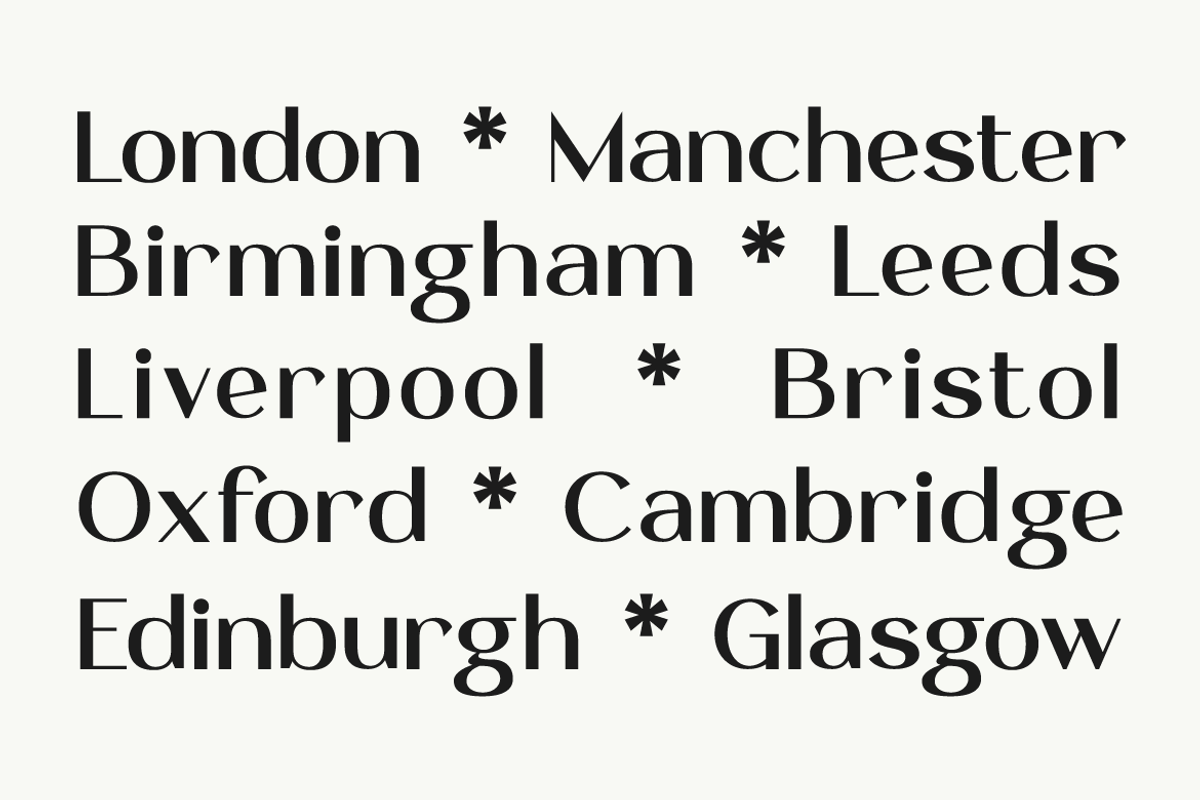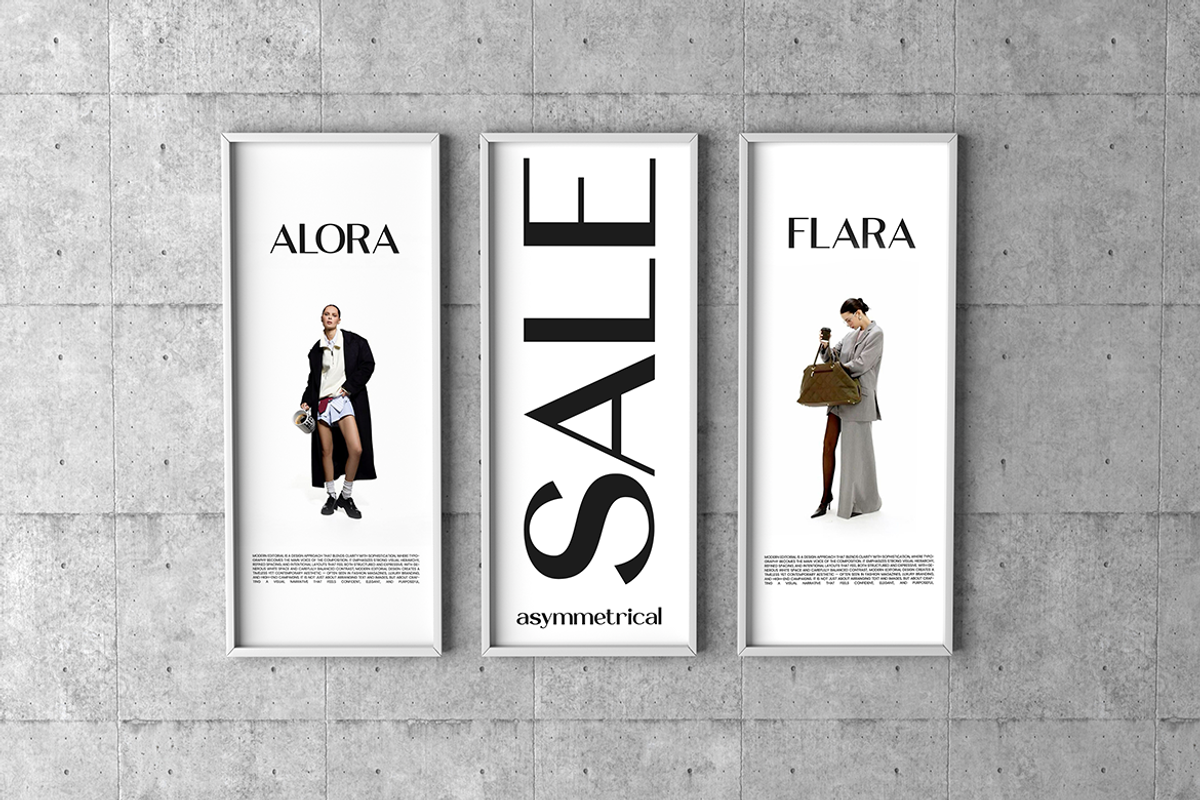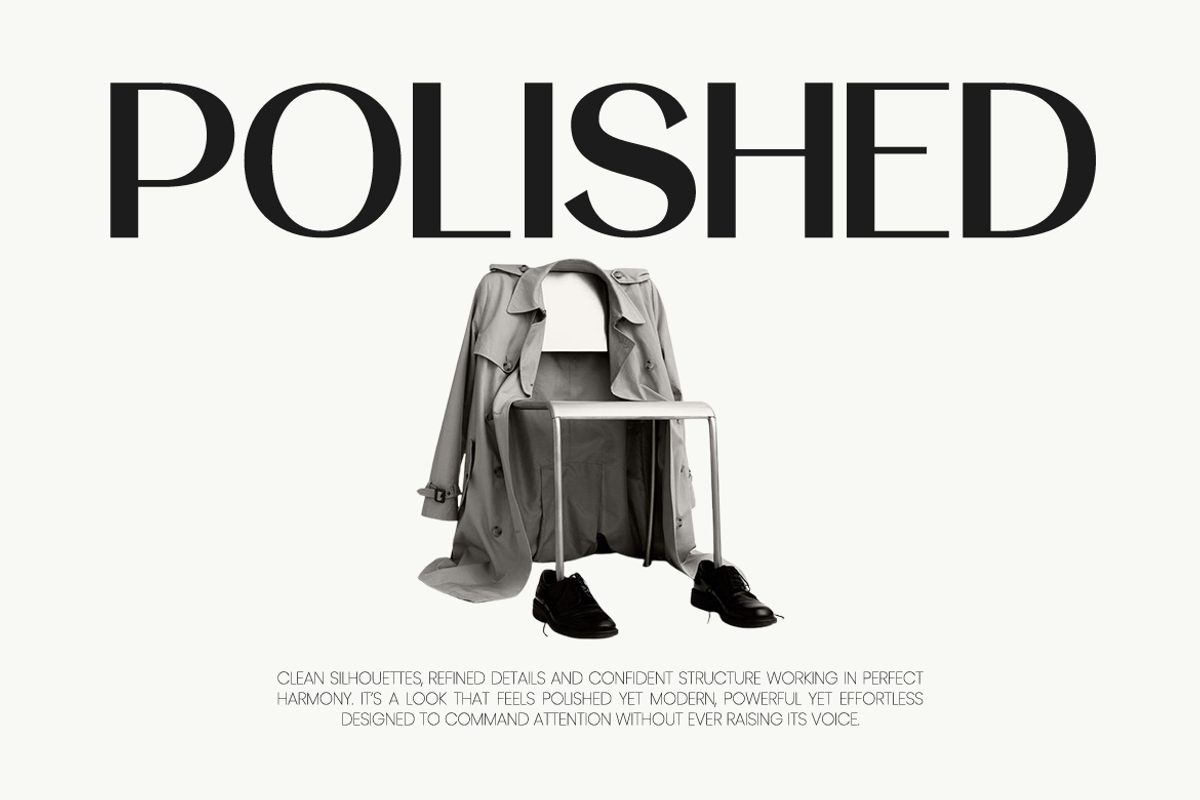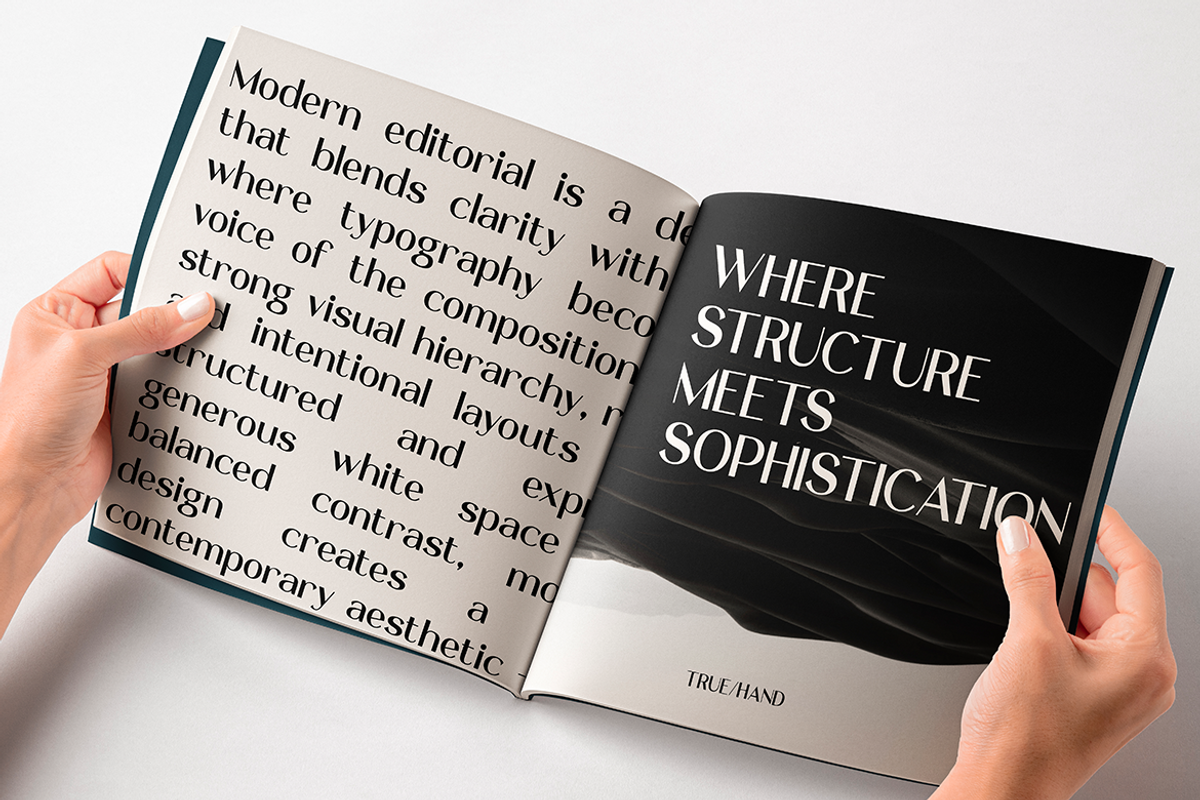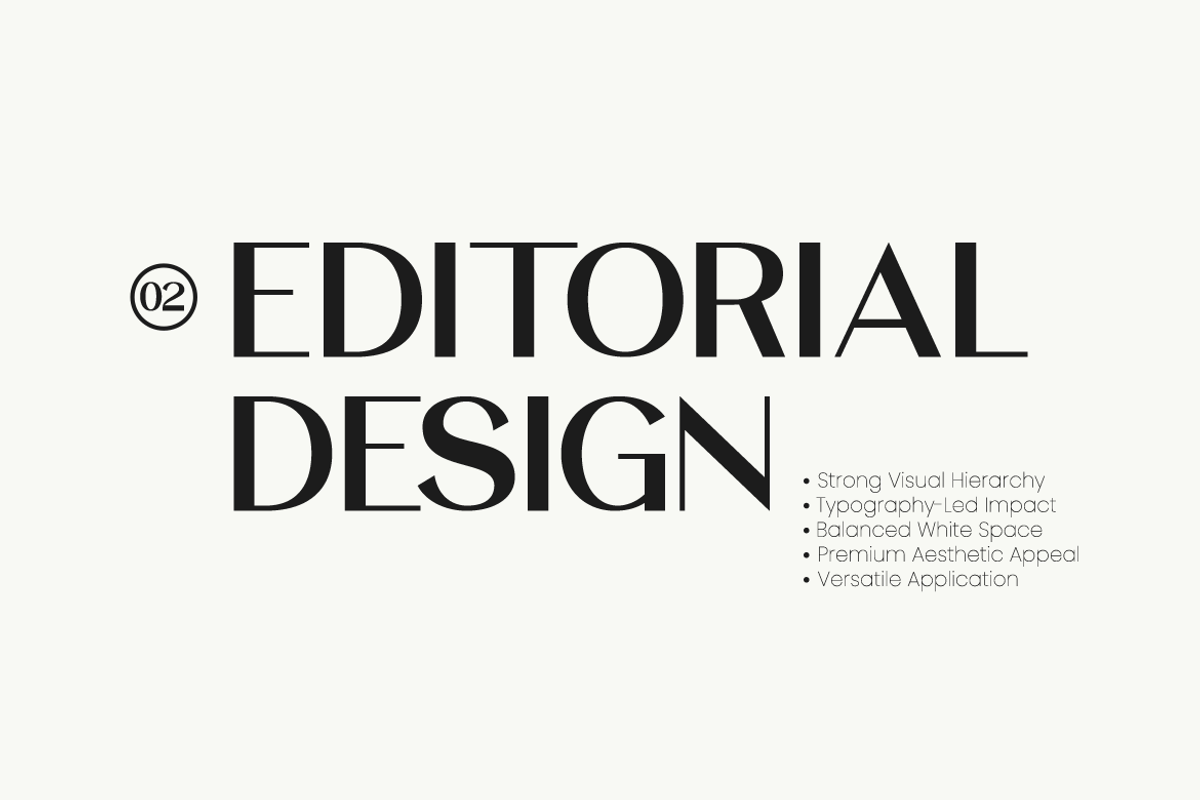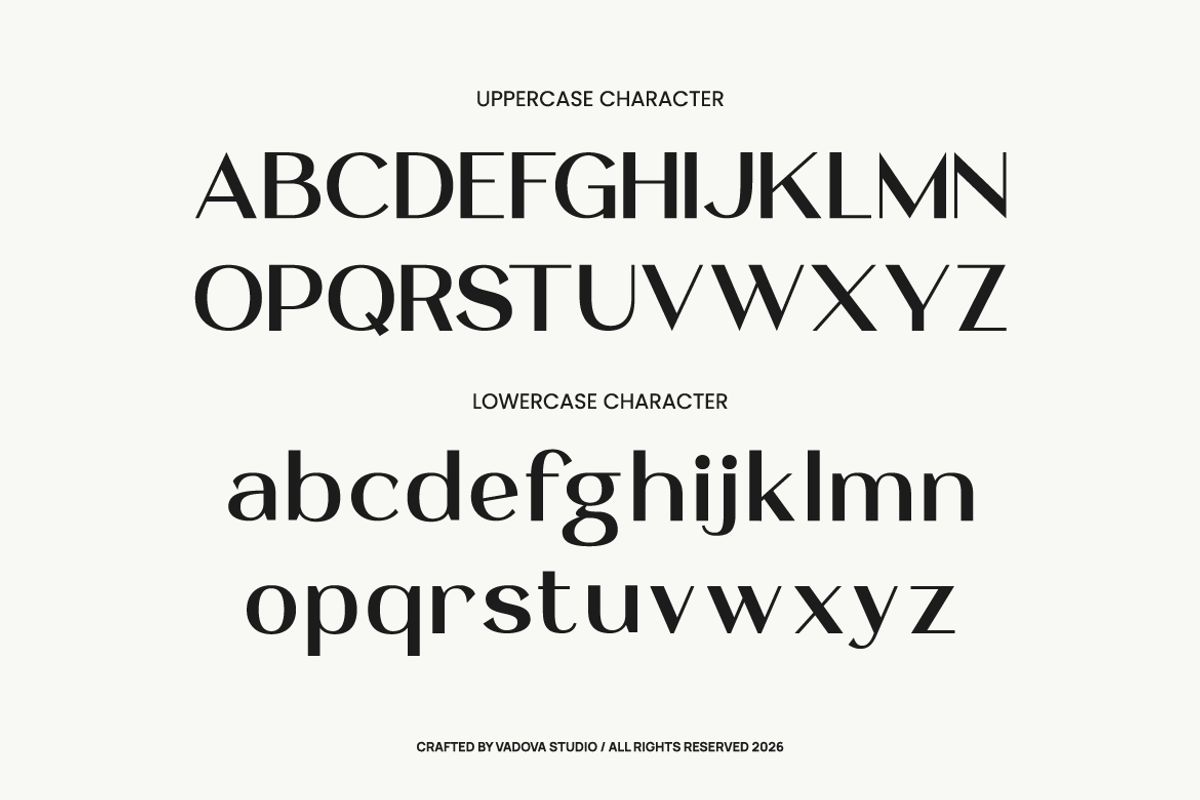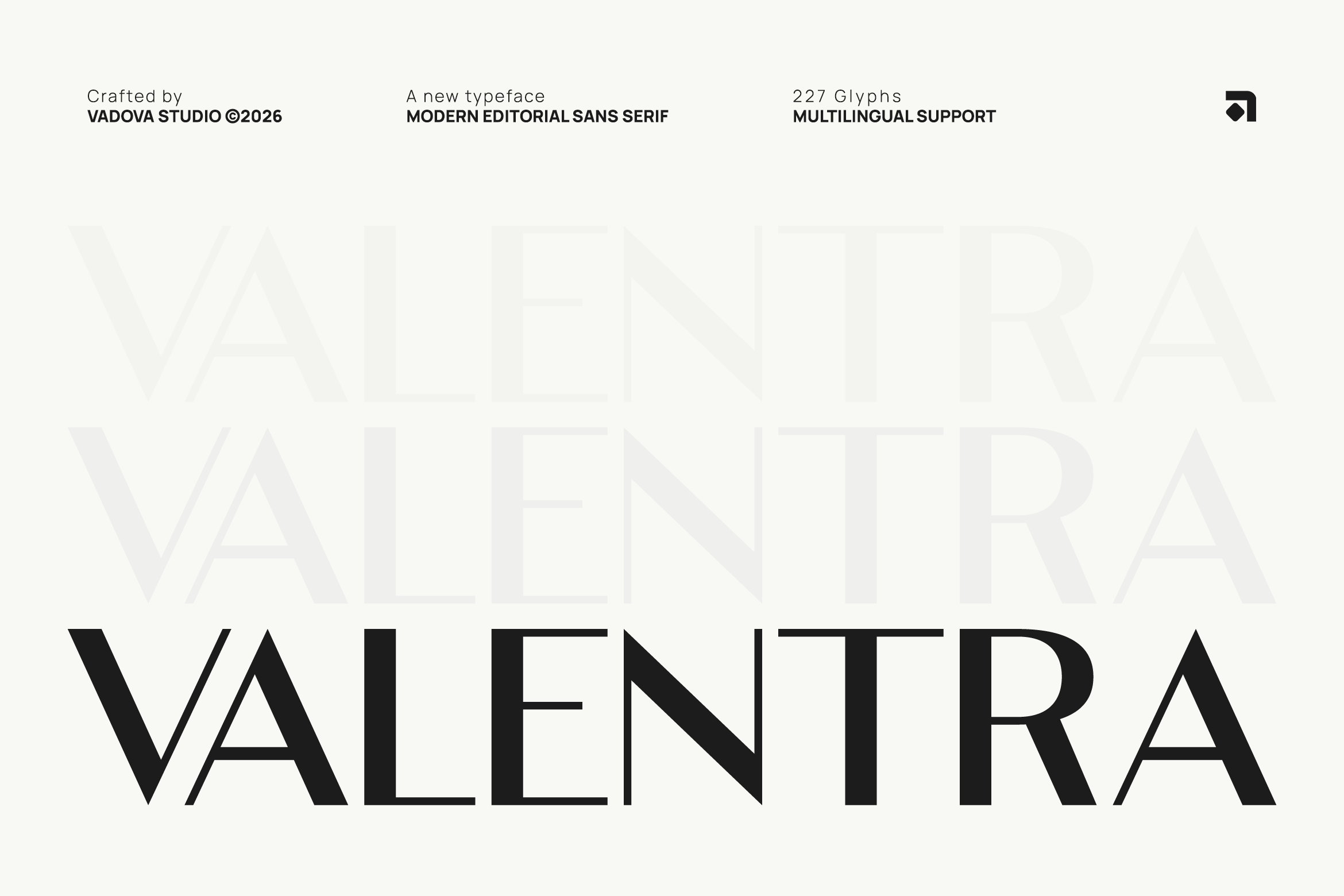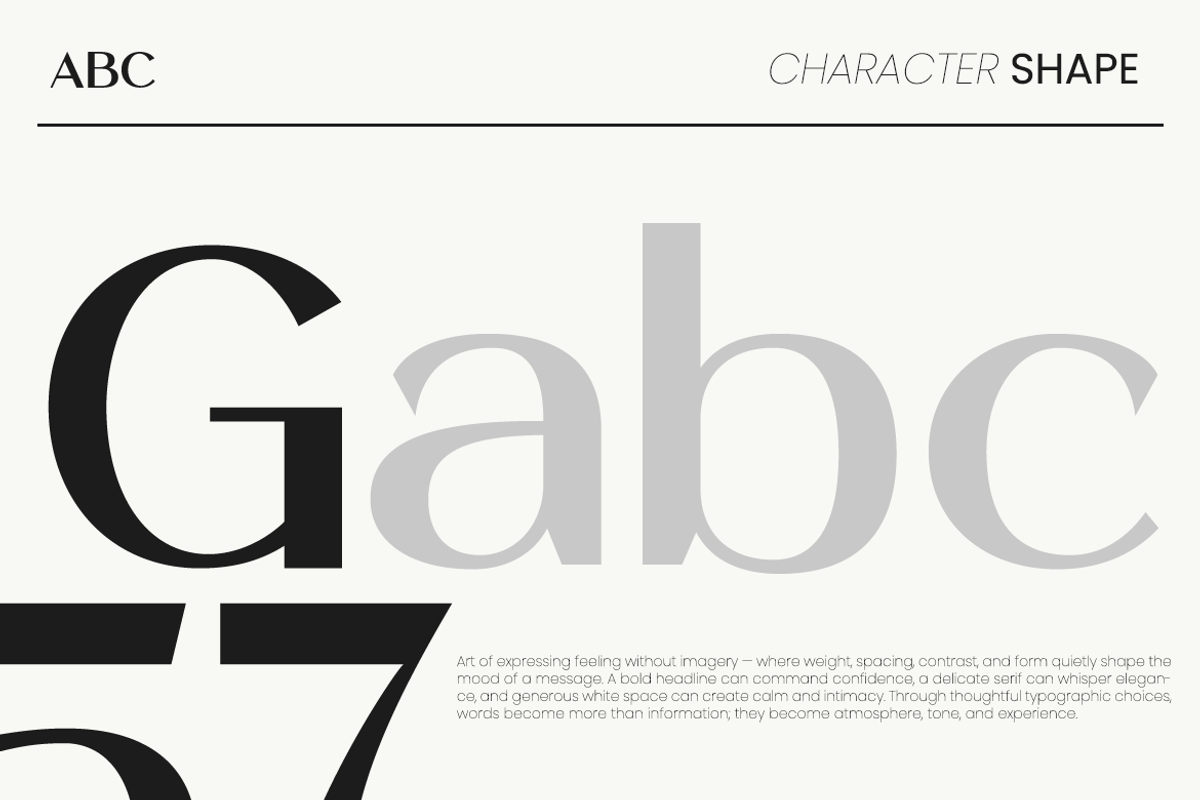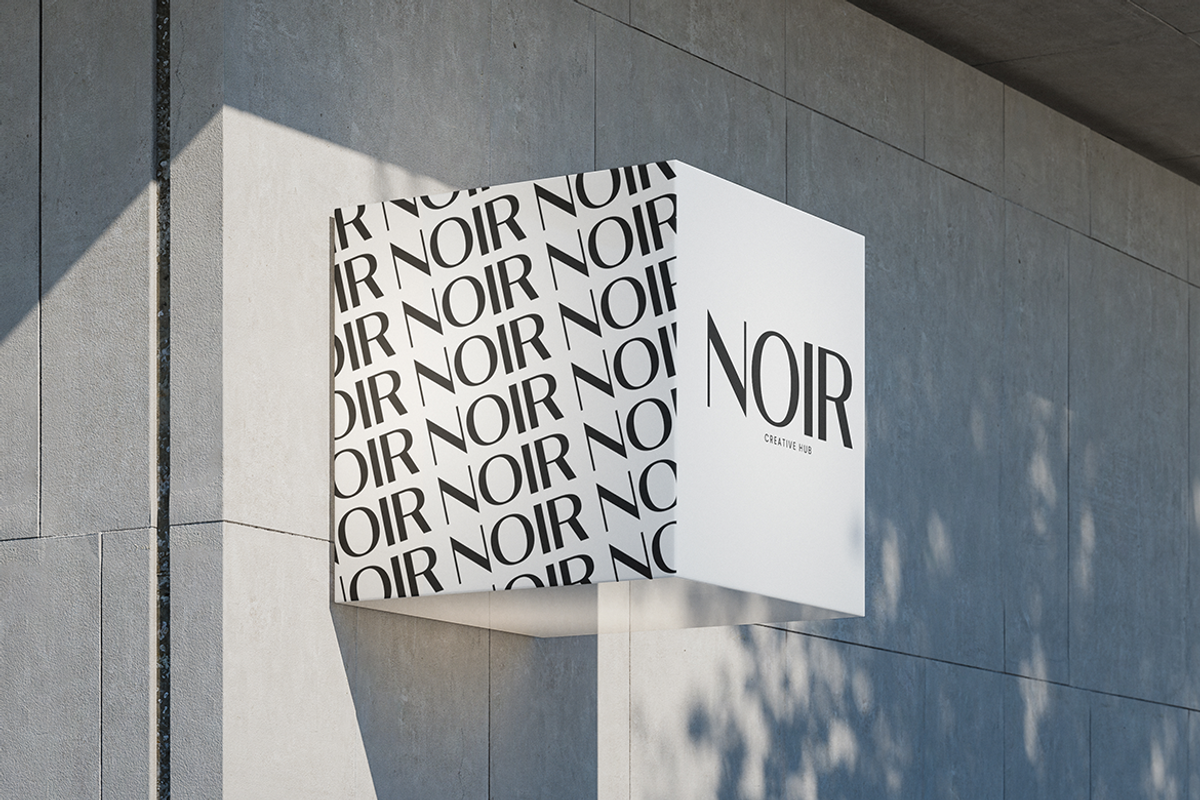
Valentra Modern Editorial Sans Font
Valentra is a modern editorial sans serif typeface designed with elegant proportions and refined letterforms. The font combines clean geometric structure with subtle editorial characteristics, creating a balanced and sophisticated visual tone suitable for contemporary design projects. Its carefully crafted strokes and smooth curves provide excellent readability while maintaining a stylish modern aesthetic.
Valentra is designed for modern editorial and branding environments where clarity and elegance are essential. The refined sans serif structure works beautifully for magazine layouts, editorial headlines, branding systems, and modern corporate identities. Its balanced proportions also make it suitable for advertising materials, packaging design, and digital marketing visuals that require sophisticated and contemporary typography.
- Brand identity systems that require a clean and sophisticated tone
- Editorial magazines, fashion layouts, and modern publishing design
- Logo design and visual identities with refined typography
- Product packaging and labels with a minimalist modern aesthetic
- Social media graphics and marketing visuals with elegant typography
- Bold brand identity systems that require strong visual impact
- Poster designs, advertising headlines, and promotional graphics
- Editorial covers and magazine titles with modern typography
- Logo design and packaging that demand powerful typography
- Social media graphics and marketing visuals that need bold attention